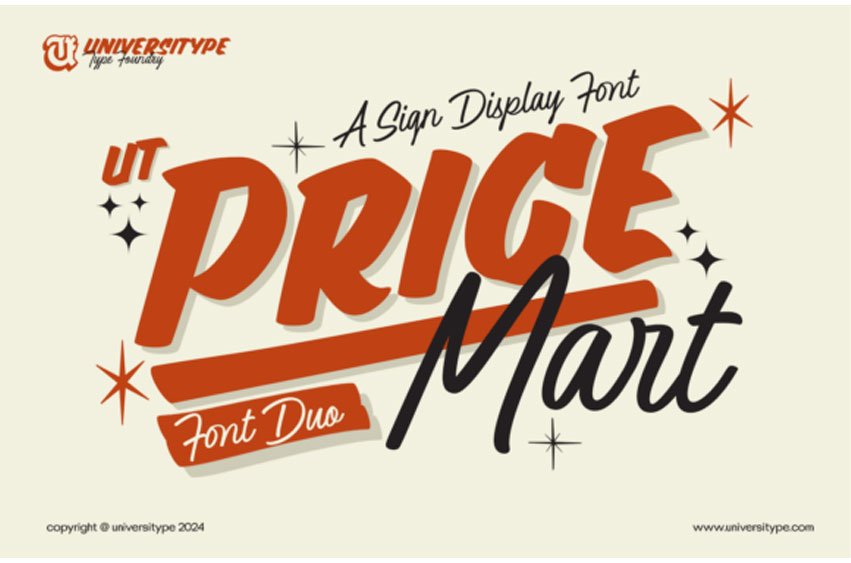
Price Mart Duo Font Discover a unique blend of classic charm and contemporary edge with the UT Pricemart Font Duo. This stunning font pair combines the assertive stance of a bold sans-serif typeface with the elegant grace of a whimsical, free-flowing script. The UT Pricemart Font Duo embodies a dynamic harmony of two contrasting styles, making it an extraordinary tool to instantly elevate your design projects. Highlight your key messages with the modern, striking sans-serif and complement it with the charming and playful script to engage your audience effectively.
The UT Pricemart Font Duo is not only flexible for a myriad of design purposes, but it also guarantees utmost quality. From designing impactful signage, crafting brand elements, to creating attractive promotional materials, the compatibility of this font duo across various design software makes it a breeze to integrate into your process. Rest assured that the meticulous craftsmanship poured into fine-tuning each character, your design will bear a polished, professional look in each application.
Furthermore, the UT Pricemart Font Duo unlocks boundless creative possibilities. Utilize the robust sans-serif font for high-impact headlines and complement it with the elegant script for a dash of personality and charm. The seamless symbiosis between the duos offers a fertile playground for exploration, allowing you to experiment with various design concepts.
Injecting the right dose of vintage elegance and cutting-edge style in your visuals is as easy as utilizing the UT Pricemart Font Duo. Experience the transformative power of this font pair in your every project. With its winning combination of retro allure and modern design, your visuals will never fail to captivate and leave a lasting impression. Choose UT Pricemart Font Duo, and let your designs brim with personality and style.